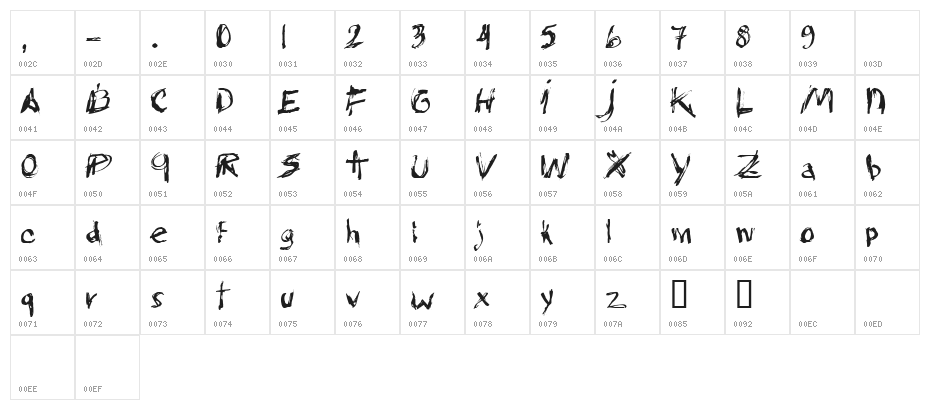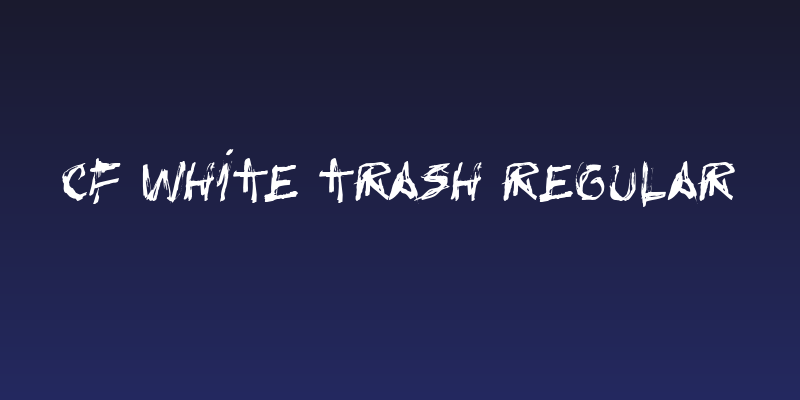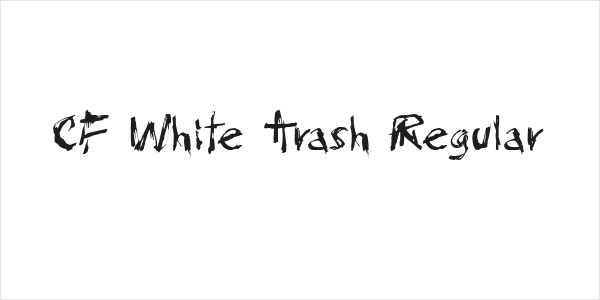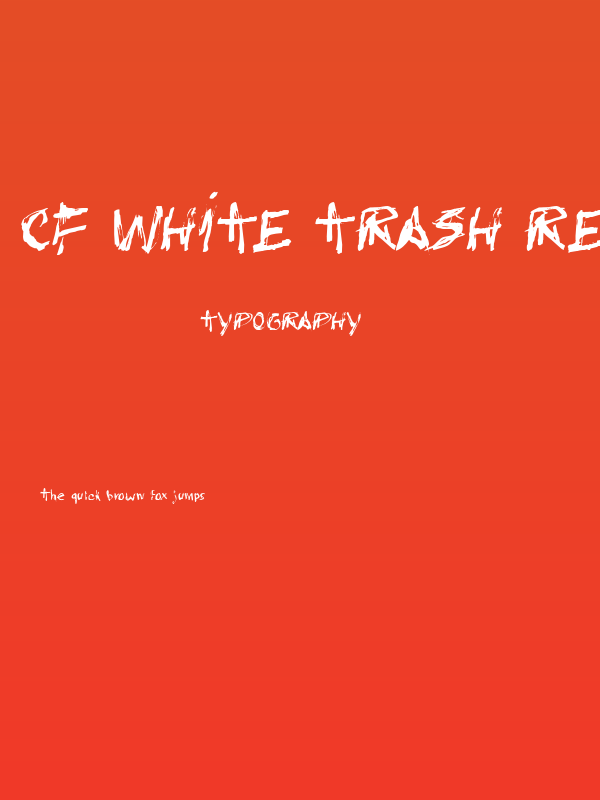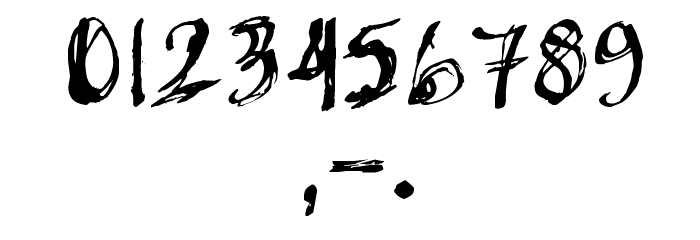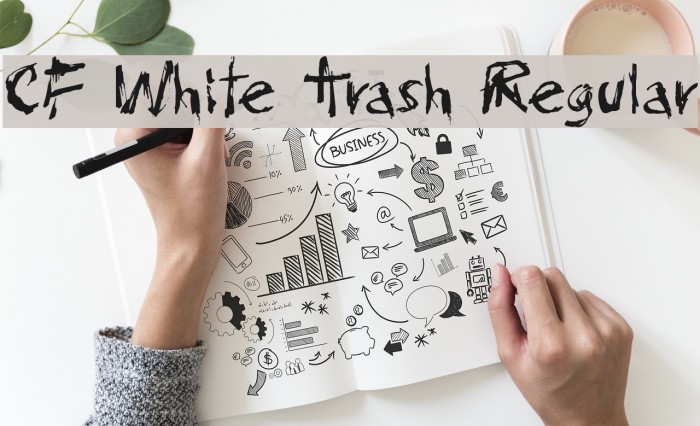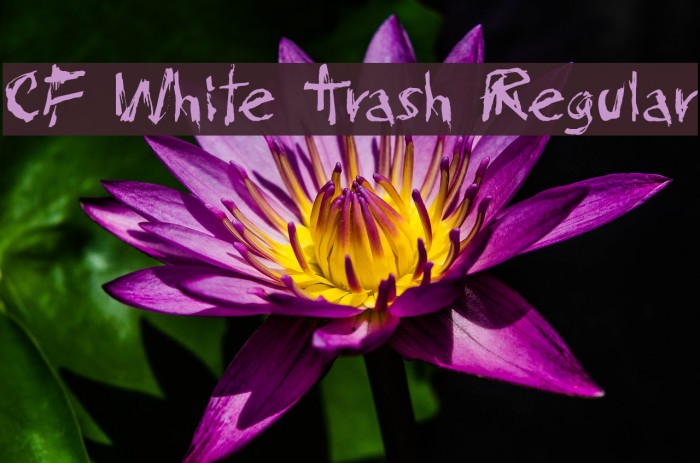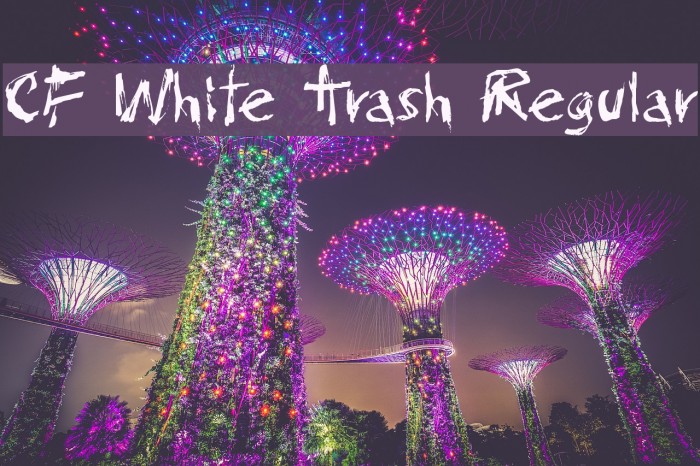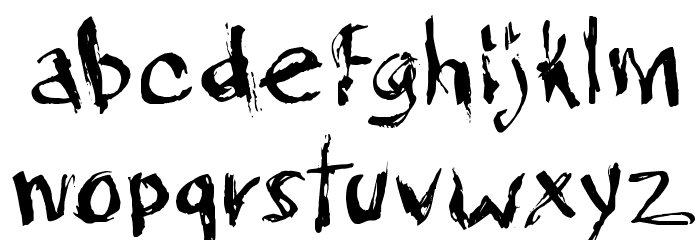
CF White Trash Regular Font
CF White Trash Regular Description
This font features a bold, expressive style with a hand-painted appearance. The strokes are irregular and dynamic, giving it a raw and edgy feel. Each character is unique, with varying thickness and a slightly distressed look, adding to its artistic flair. The uppercase and lowercase letters maintain a consistent style, while the numbers and special characters complement the overall design. This font is perfect for projects that require a bold statement or a creative touch.
| Overall Style | Modern, Artistic |
| Proposed Projects | Ideal for album covers, posters, graffiti art, and edgy branding projects. |